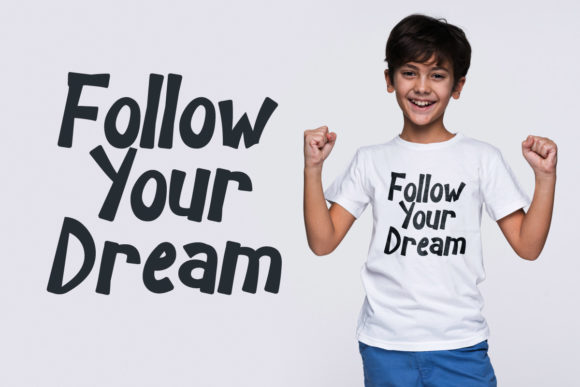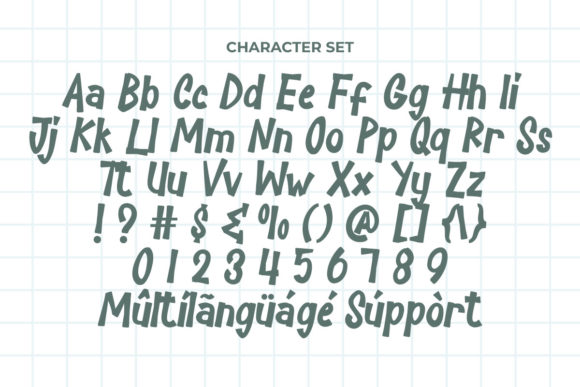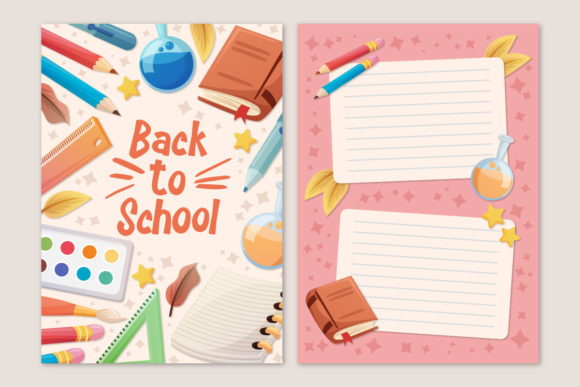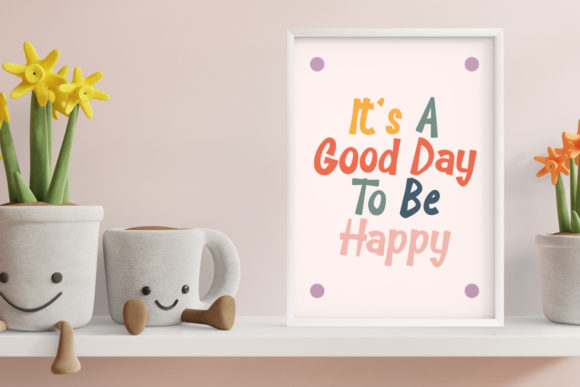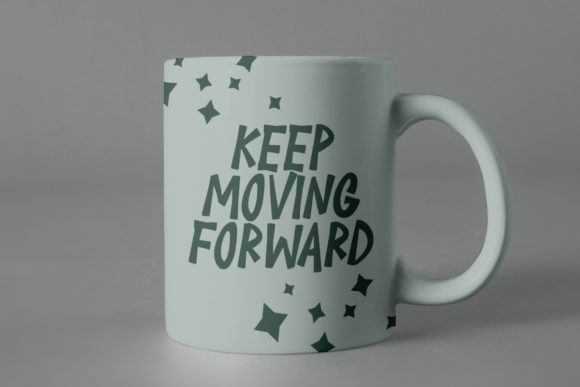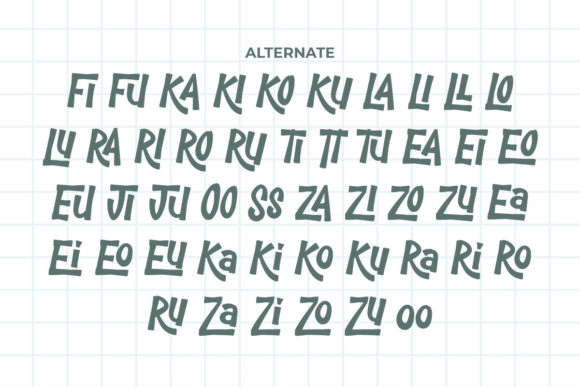
Do you remember the feeling of excitement and joy when you’re planning a birthday party for a little one? The colorful balloons, the sweet treats, and the endless possibilities for creative expression – it’s a moment that sparks imagination and brings people together. For designers, creating these magical moments with typography can be just as thrilling.
That’s where the Good Kids Font comes in – a fun display font that captures the essence of youthfulness and playfulness. Its adaptable style makes it perfect for any children’s activity or school project, from creating eye-catching posters to designing engaging lesson plans. With its authenticity and charm, the Good Kids Font is a valuable addition to any designer’s toolkit, offering endless possibilities for creative expression.
Good Kids Font Key Features
- Font Family: Good Kids Font is a unique, hand-drawn font designed for children’s products, educational materials, and playful branding.
- Unique Characteristics: The Good Kids Font features a playful, hand-drawn design with rounded edges, making it perfect for creating a friendly and approachable atmosphere in children’s products and branding.
Good Kids Font Review
As a designer, I was excited to dive into the “Good Kids Font” and see what it had to offer. Overall, I’d say it’s a solid, if not spectacular, choice for your next project.
Unique character: The Good Kids Font has a distinct, playful feel that sets it apart from more generic sans-serif fonts.
Clear typography: The font is well-designed, making it easy to read, even at smaller sizes.
Fun for children’s content: As the name suggests, this font is perfect for kids’ books, educational materials, or any project that needs a lighthearted touch.
Limited versatility: While great for children’s content, the Good Kids Font may not be the best choice for more serious or professional projects.
No bold or italic options: If you need to emphasize certain text, you may be out of luck with this font.
Overall, I’d recommend the Good Kids Font for projects that need a playful, kid-friendly vibe. Just be aware of its limitations and consider using it in conjunction with other fonts to add some visual interest.
Use the “Good Kids Font” to add a playful touch to your designs.
Combine it with bold colors and fun illustrations for a visually appealing result.
Experiment with different font sizes and styles to create a unique look.
Use the “Good Kids Font” for:
Children’s party invitations and decorations.
Children’s books and educational materials.
Fun and playful social media posts and advertisements.
Alternatives to “Good Kids Font” for Designers
Great Vibes Font is a modern, elegant script font that is perfect for creating a playful and youthful vibe. It is ideal for use in logos, headings, and titles where a friendly and approachable tone is desired. Great Vibes Font is more ornate and decorative compared to Good Kids Font, making it suitable for projects that require a touch of sophistication.
Pacifico Font is a beautiful, cursive script font that evokes a sense of relaxation and calmness. It is suitable for use in headings, titles, and body text where a soft and elegant tone is desired. Pacifico Font is more refined and polished compared to Good Kids Font, making it ideal for projects that require a touch of luxury.
Lato Font is a modern sans-serif font that is highly legible and versatile. It is perfect for use in body text, headings, and titles where a clean and professional tone is desired. Lato Font is more minimalist and straightforward compared to Good Kids Font, making it suitable for projects that require a touch of sophistication and elegance.